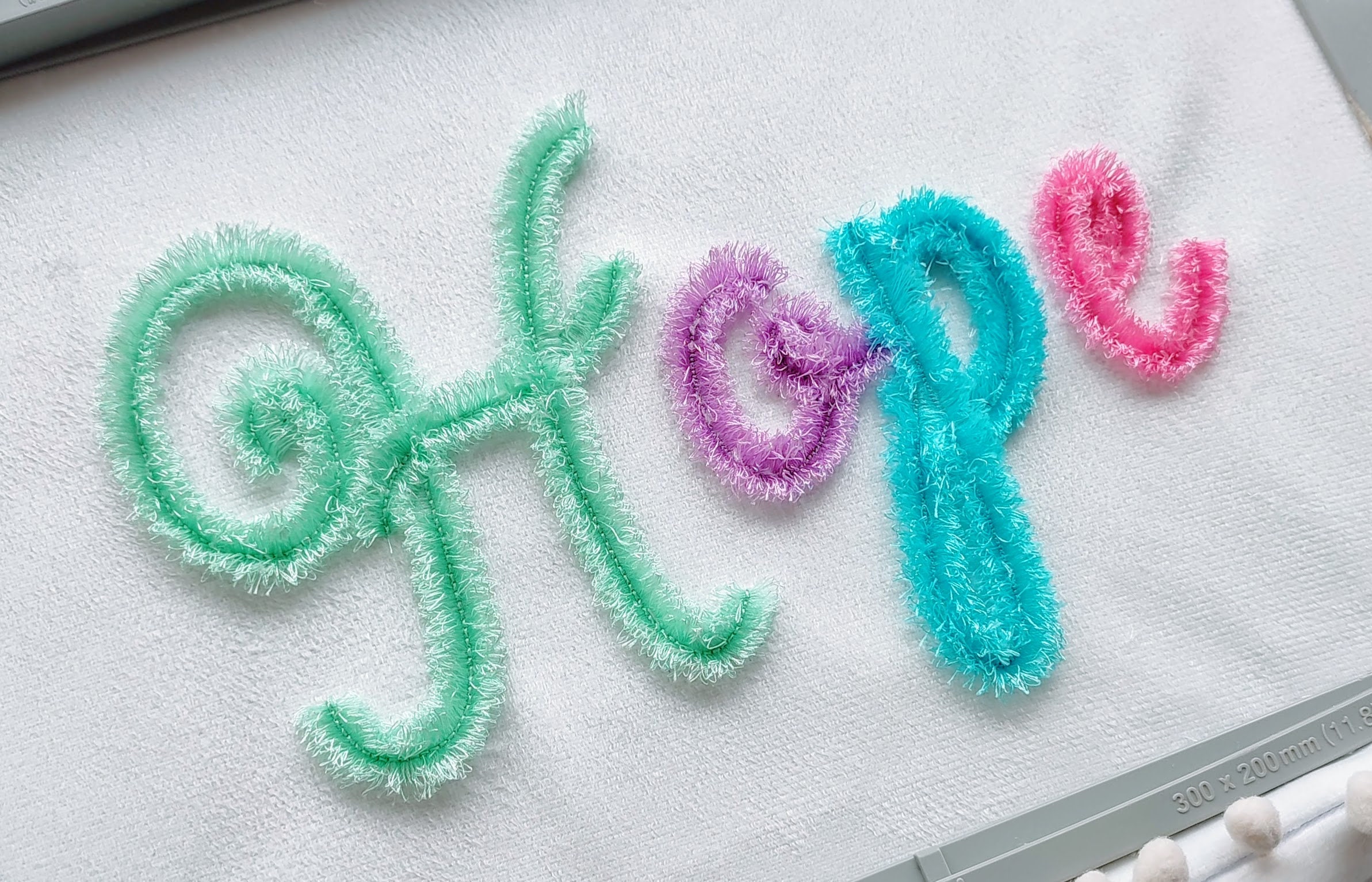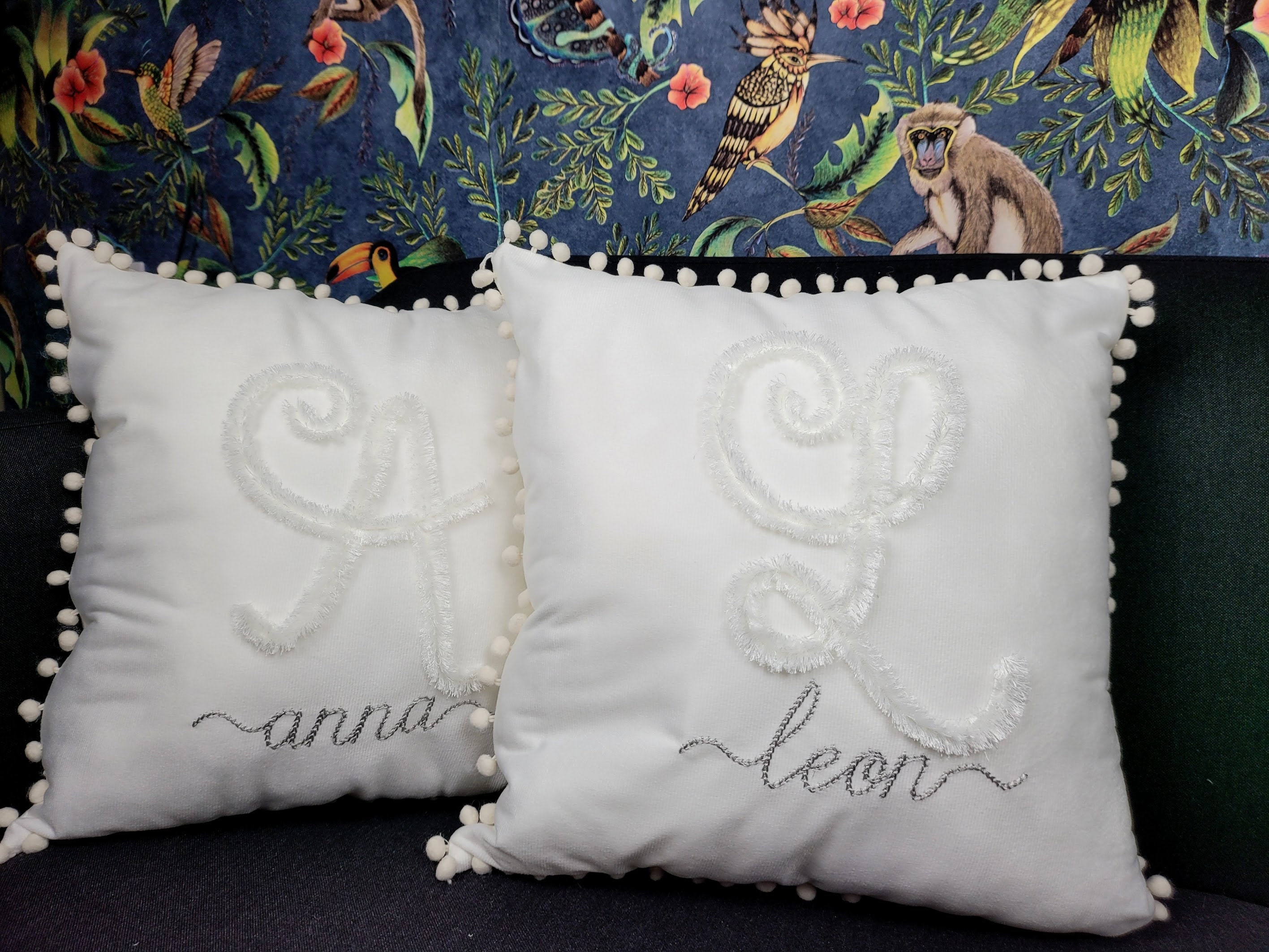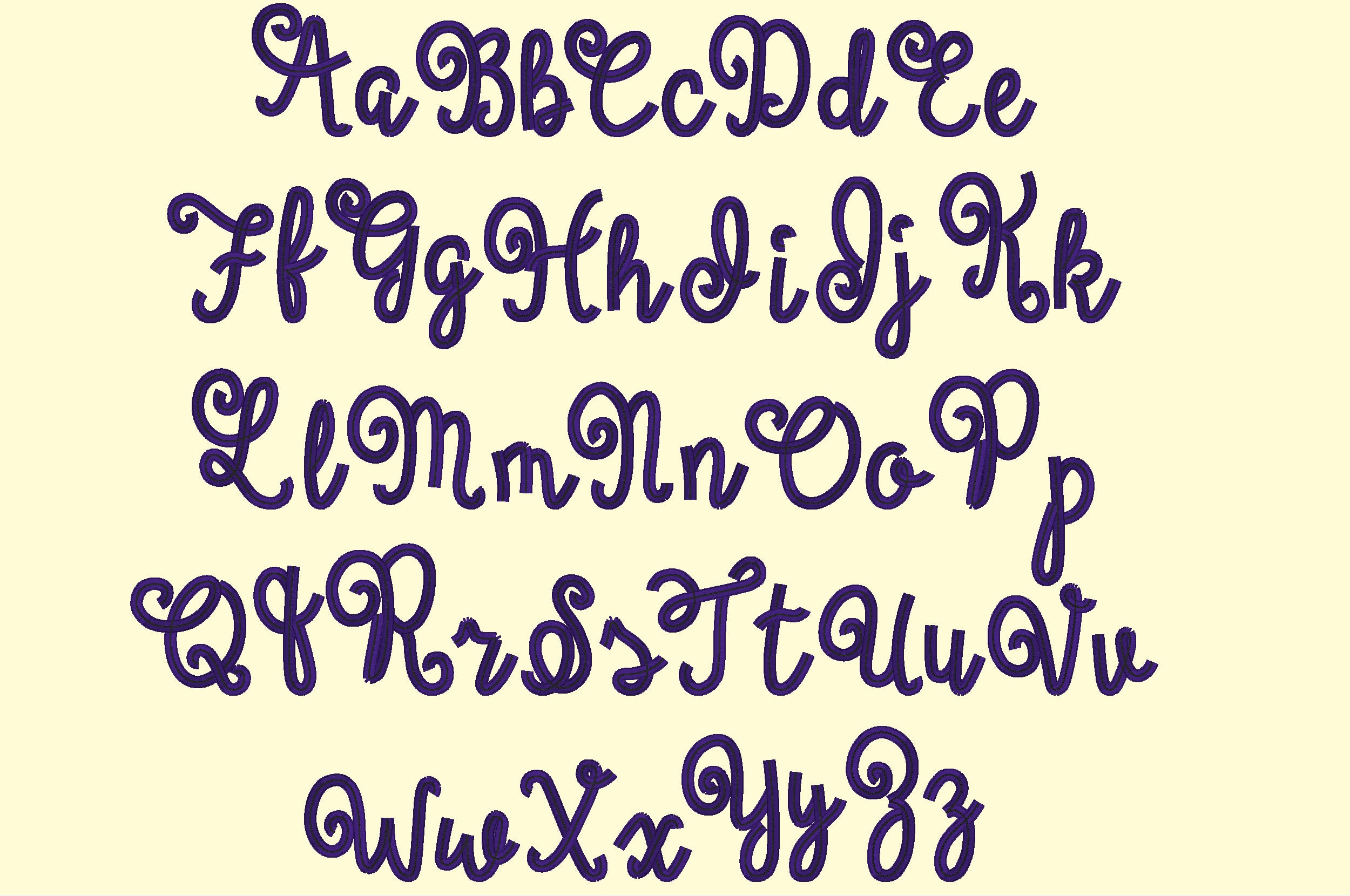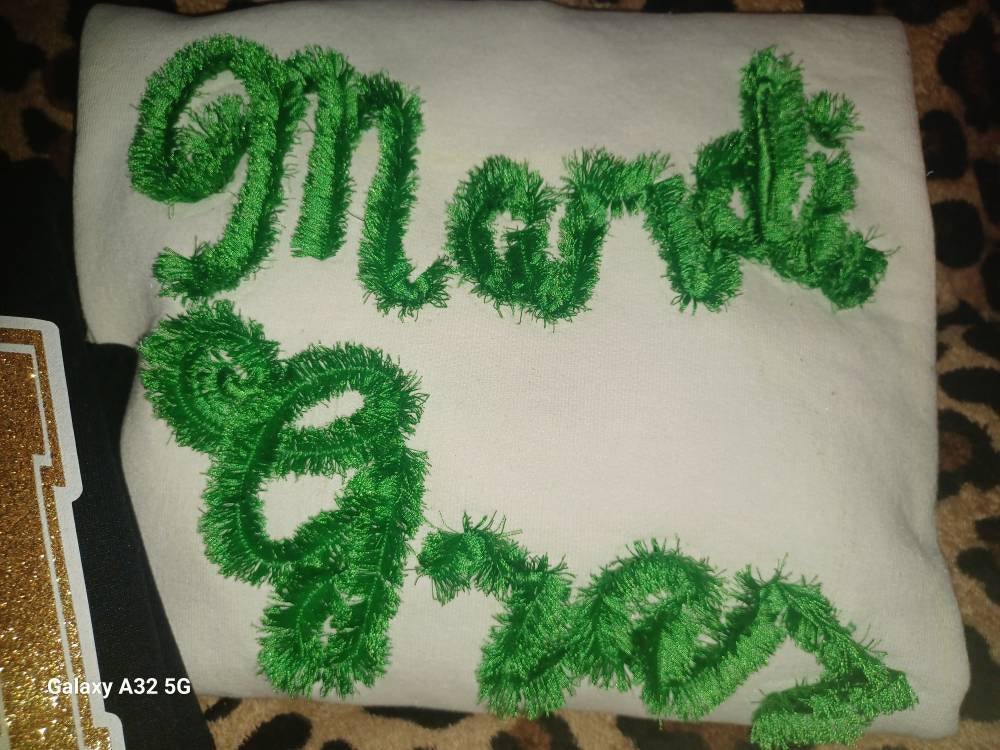
Big Fringe extra fluff! Fringed FONT alphabet letters machine embroidery designs in assorted maxi sizes kids girly pretty fluffy letters, BX included
NB! This is extra fluff fringed font.
Please add one layer more of a strong stabilizer. You will be pleased with the results.
You may fringe all letters.
100 % safe to tear and wash.
It is easy. Embroider the design as usually. Large satin stitches will be loose. Once you complete stitching the design, turn over your hoop to see a reverse side and cut the bobbin thread, along the large satin stitches. Turn the hoop back over and fluff up the "fringe" around. Please view images on how-to. Also, please view the video tutorial of my other fringed project, but the technique is the same:
Entire alphabet A-Z uppercase and lowercase, and special mark "dash" -